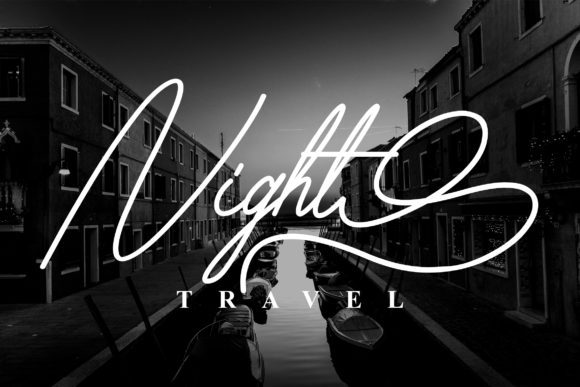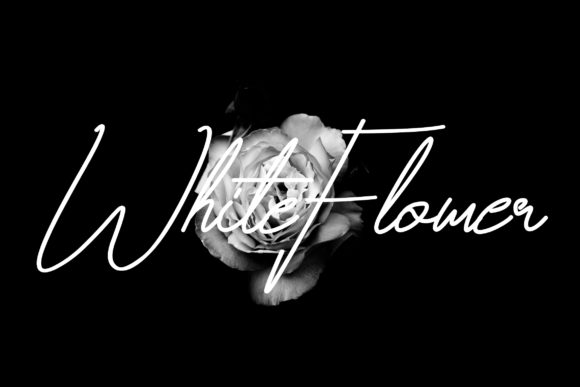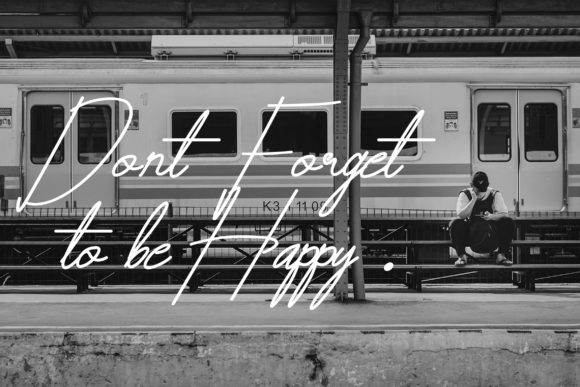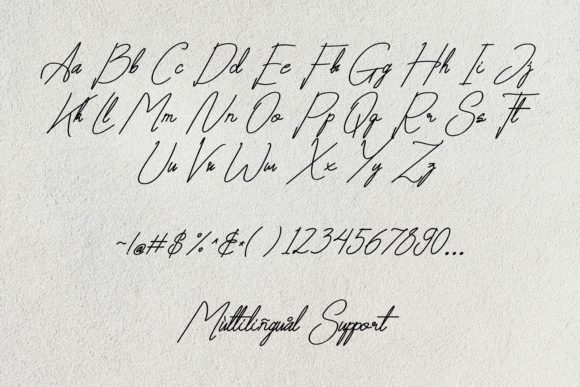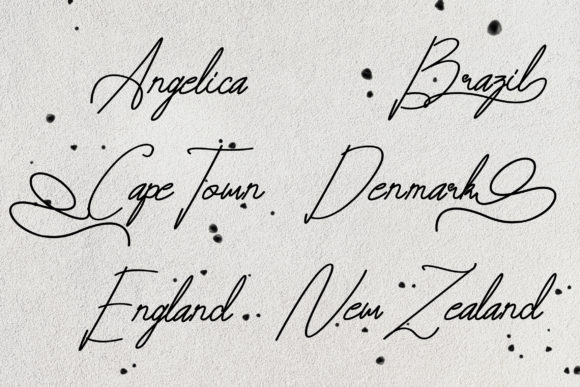
HomeScript FontsMahadetty Font Script Fonts Mahadetty Font FacebookXPinterestWhatsApp Mahadetty Font Poster 2 Mahadetty Font Poster 3 Mahadetty Font Poster 4 Mahadetty Font Poster 5 Mahadetty Font Poster 6 About Mahadetty Font Mahadetty signature is a monoline font that has a messy first impression but looks charming in detail. DOWNLOAD NOW People also explored Vallerate Font Lavineta Eisley Font Dailymilk Font Buffalo Font Butterfly Gold Monogram Font Our Daydream Font Brastagi Signature Font Buny Huny Font Daisha Hailey Font 240 0 TagsMahadetty Font Previous articleHilles FontNext articleRolest Font LEAVE A REPLY Cancel reply Comment: Please enter your comment! Name:* Please enter your name here Email:* You have entered an incorrect email address! Please enter your email address here Website: Save my name, email, and website in this browser for the next time I comment. Personal Use Free Kensin Personal Use Free Read more about this font Omellia Personal Use Free Read more about this font Castina Personal Use Free Read more about this font Fat Max Personal Use Free Read more about this font BLOG How to Cut Any Font on Cricut: Convert a Font to SVG (Free) Turn any font into a clean SVG so it cuts crisp on Cricut - a quick 3-step workflow using a free font-to-SVG tool. Best Fonts for YouTube Videos: Make Your Thumbnails Stand Out Free Fonts Risk: Why Free Fonts Can Be Dangerous for Designers To increase your work productivity, choose the most readable fonts.